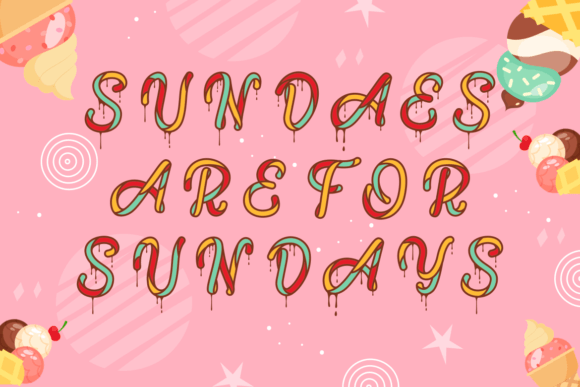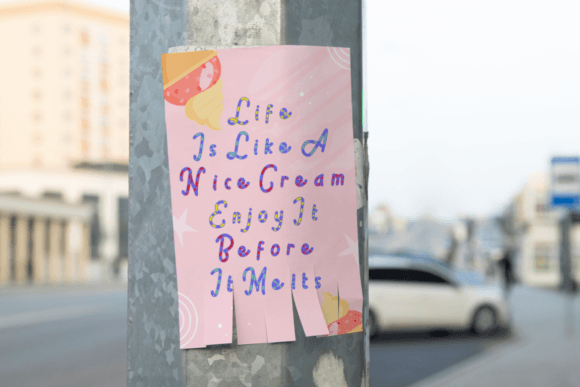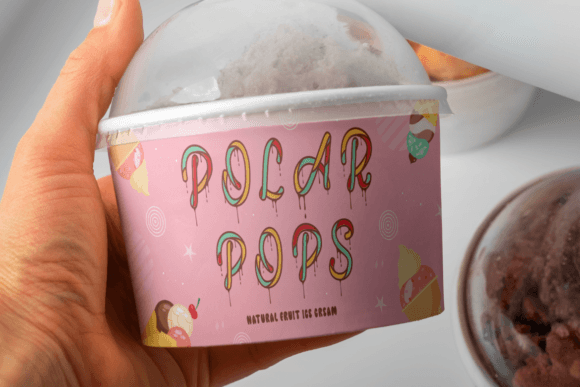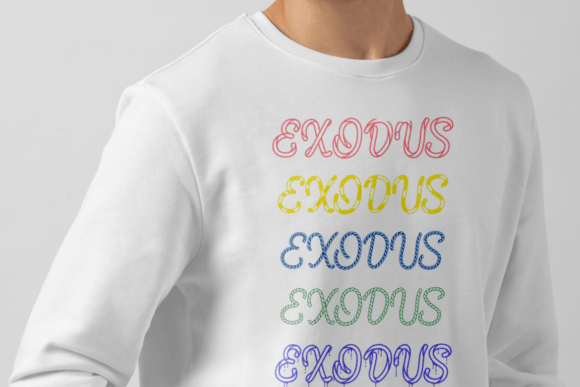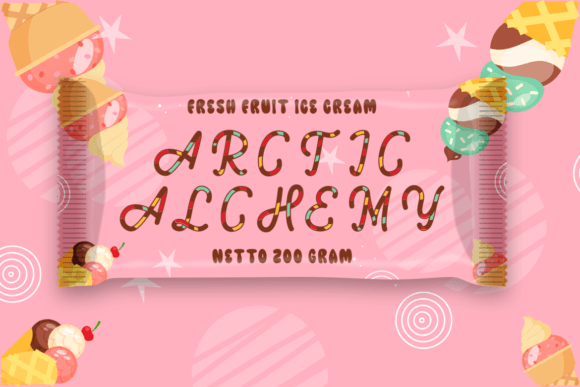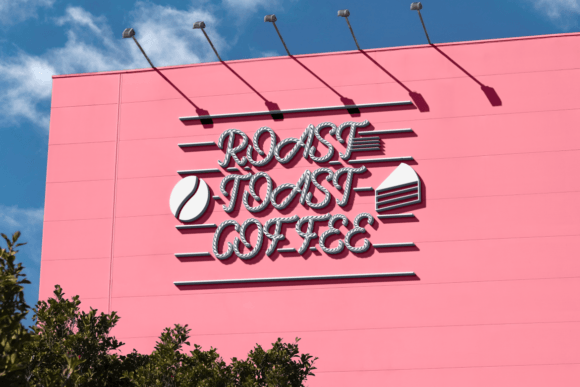
Introduction to Coral Cascade Font
Have you ever been working on a design project, and suddenly, the perfect font pops into your mind, making all the difference? That’s exactly what happened to many designers when they discovered the Coral Cascade Font – a vibrant, candy-inspired display font that adds a burst of color and whimsy to any creative project.
As a valuable design resource, Coral Cascade Font is more than just a font – it’s a celebration of creativity and color. Its high-quality design and transparent background make it a perfect addition to any project, whether it’s a logo for a trendy startup, a crafty business, or a children’s book that needs a touch of magic. And the best part? You can download it for free and let your imagination run wild!
Key Features of Coral Cascade Font
- High-quality, elegant design ideal for creative projects, such as wedding invitations, greeting cards, and art prints.
- Features a transparent background, allowing for easy integration with custom backgrounds or images.
- High-resolution design (300 DPI) suitable for print materials, ensuring crisp and clear text.
- Unique, hand-drawn style with intricate details, setting it apart from other fonts in the market.
Honest Review: Coral Cascade Font
I recently had the opportunity to work with the Coral Cascade Font, and I must say it’s a delightful addition to any design project. As a design resource, it’s a free download that’s hard to pass up.
What works well: ✨ The Coral Cascade Font is a high-quality, elegant script font that’s perfect for creative projects that require a touch of sophistication. It’s also available in various formats, making it easy to integrate into your design workflow. The transparent background is a nice touch, allowing you to easily place the font over any background image.
- Works well for titles, headings, and other design elements that require a touch of elegance
- High-quality font that’s perfect for creative projects
- Transparent background makes it easy to use in various design scenarios
Limitations: ⚠️ While the Coral Cascade Font is a great addition to any design project, it may not be suitable for projects that require a bold, sans-serif font. Additionally, the font may not be as versatile as some other script fonts on the market.
Overall, I’m impressed with the Coral Cascade Font. It’s a great free download that’s perfect for designers who want to add a touch of elegance to their creative projects.
Coral Cascade Font
The Coral Cascade Font is a high-quality design resource perfect for creative projects. With its unique and stylish design, this font is sure to elevate your next project.
Getting the Most Out of the Coral Cascade Font
To get the most out of the Coral Cascade Font, try using it with a transparent background to create a clean and modern design. Experiment with different font sizes and styles to find the perfect look for your project.
The Coral Cascade Font is perfect for a variety of design projects, including:
- Website headers and footers
Can I customize the Coral Cascade Font to fit my design needs?
Yes, you can customize the Coral Cascade Font to fit your design needs. The font is highly versatile and can be used in a variety of creative projects, including logos, graphics, and more. You can also use the font in conjunction with other design elements, such as images and textures, to create a unique and eye-catching design.